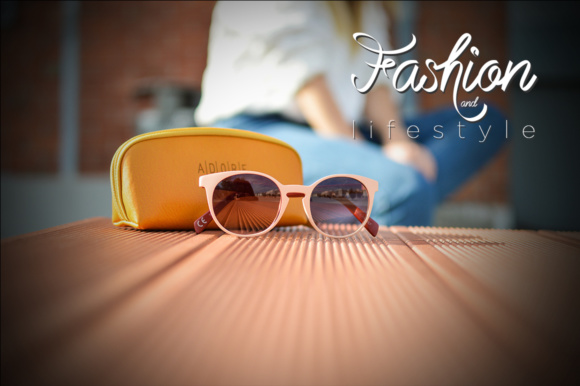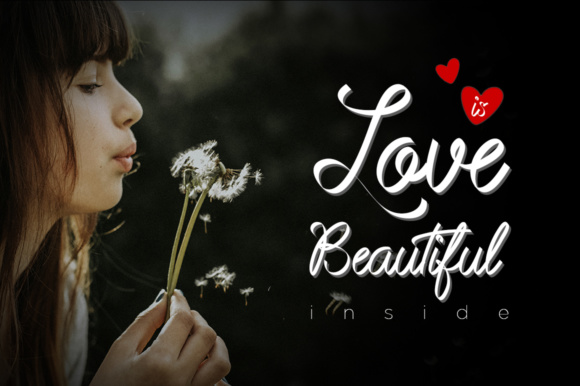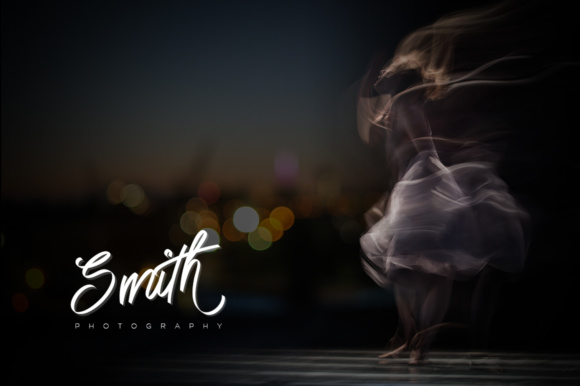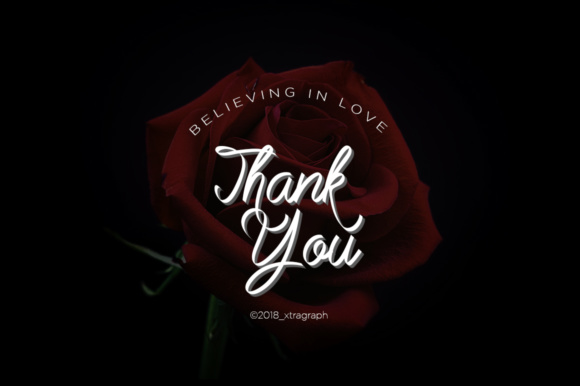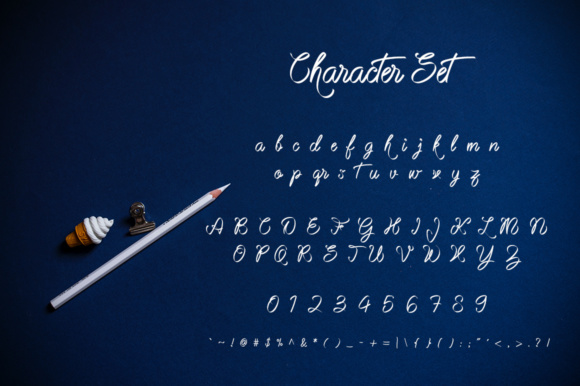
Asturo Ribbon Font: Elevate Your Designs with Elegance and Sophistication
Are you a designer or crafter looking for a font that exudes elegance and sophistication? Look no further than the Asturo Ribbon Font. This beautiful font is perfect for a variety of design projects, including wedding invitations, fashion magazines, logos, signatures, and even watermark photography. In this article, we’ll explore the features and benefits of the Asturo Ribbon Font and how it can elevate your designs to the next level.
What is Asturo Ribbon Font?
Asturo Ribbon Font is a stylish and modern script font that features elegant ribbon-like strokes. Its unique design makes it stand out from other fonts, adding a touch of luxury and sophistication to any design project. The font is highly versatile and can be used for both personal and commercial projects.
Key Features of Asturo Ribbon Font
- Elegant and Sophisticated Design: The Asturo Ribbon Font features a beautiful, flowing script design that adds a touch of elegance and sophistication to any design project.
- Highly Versatile: This font can be used for a variety of design projects, including wedding invitations, fashion magazines, logos, signatures, and watermark photography.
- Easy to Read: Despite its elegant design, the Asturo Ribbon Font is highly legible and easy to read, making it perfect for body text and headlines.
Use Cases for Asturo Ribbon Font
The Asturo Ribbon Font is perfect for a variety of design projects, including:
- Wedding Invitations: Add a touch of elegance and sophistication to your wedding invitations with the Asturo Ribbon Font.
- Fashion Magazines: Use the Asturo Ribbon Font to create stunning headlines and titles for your fashion magazine.
- Logos and Signatures: Create a professional and elegant logo or signature with the Asturo Ribbon Font.
- Watermark Photography: Add a touch of sophistication to your watermark photography with the Asturo Ribbon Font.
Benefits of Using Asturo Ribbon Font
Using the Asturo Ribbon Font in your design projects offers several benefits, including:
- Unique and Creative Designs: The Asturo Ribbon Font allows you to create unique and creative designs that stand out from the crowd.
- Professional and Elegant Look: The font gives your designs a professional and elegant look, perfect for high-end clients and luxury brands.
- Time-Saving: The Asturo Ribbon Font is easy to use and saves you time and effort in creating elegant and sophisticated designs.
Tips and Tricks for Using Asturo Ribbon Font
Here are some tips and tricks for using the Asturo Ribbon Font in your design projects:
- Use it Sparingly: Use the Asturo Ribbon Font sparingly to add emphasis and create visual interest in your designs.
- Experiment with Colors: Experiment with different colors and textures to add depth and dimension to your designs.
- Pair it with Other Fonts: Pair the Asturo Ribbon Font with other fonts to create a unique and creative typography.
In conclusion, the Asturo Ribbon Font is a beautiful and elegant font that can elevate your designs to the next level. Its unique design, versatility, and ease of use make it perfect for a variety of design projects, including wedding invitations, fashion magazines, logos, signatures, and watermark photography. With its professional and elegant look, the Asturo Ribbon Font is a must-have for designers and crafters looking to create stunning designs.